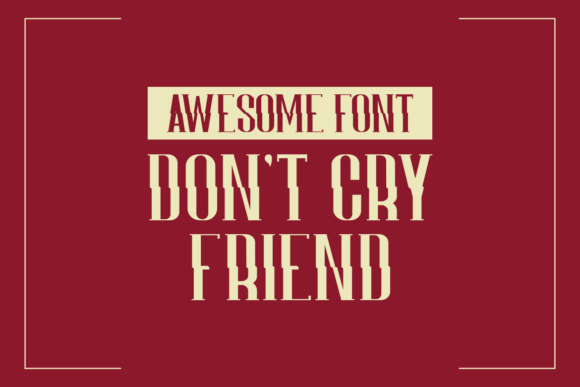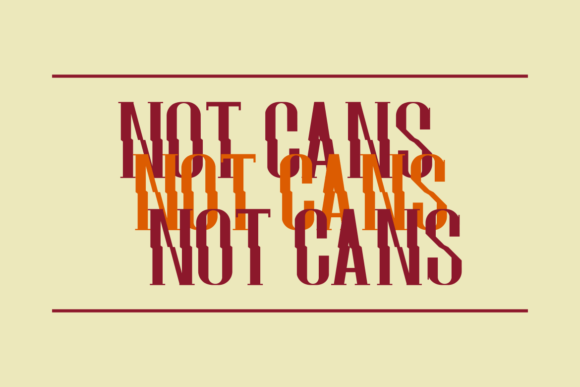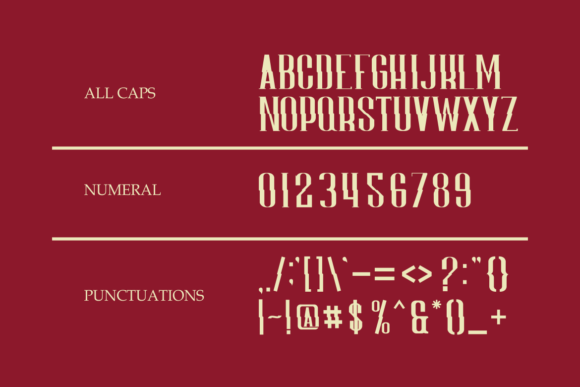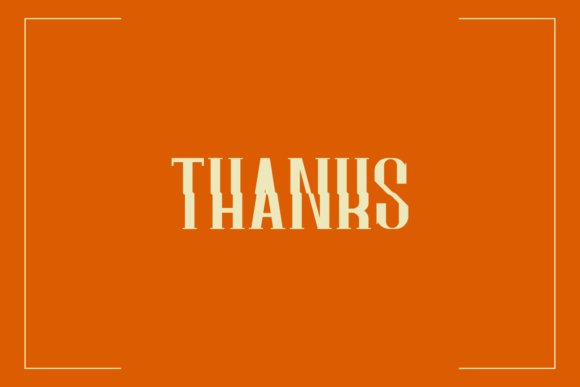
Introduction to Slantedeyes Font Font
Fonts play a crucial role in design, and the Slantedeyes Font font is a typeface that brings both character and versatility to any project. Whether you’re working on a branding project, a website, or a print design, the Slantedeyes Font font offers a unique style that can elevate your work.
Slantedeyes is a fun and cool display font.
Key Features of Slantedeyes Font Font
Why Choose Slantedeyes Font Font?
The Slantedeyes Font font is more than just a typeface – it’s a design tool that helps you communicate your message with style and clarity. Its unique character set and versatile design make it suitable for a wide range of applications, from elegant invitations to bold headlines.
With its carefully crafted letterforms and balanced proportions, the Slantedeyes Font font ensures readability and visual appeal across all mediums.
What makes Slantedeyes Font font special?
The Slantedeyes Font font stands out with its unique design, exceptional readability, and versatility across various design applications.